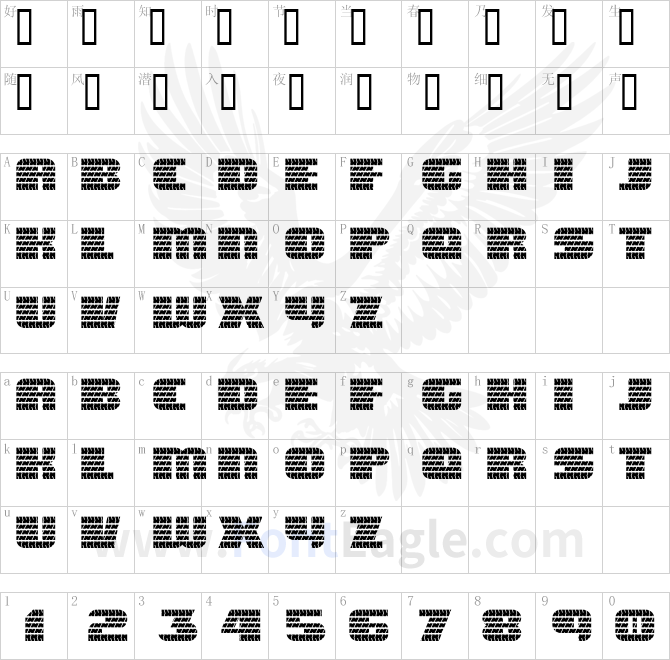
- Font name:Eagle GT II
- Font Subfamily ID:Eagle GT II
- Font Full Name:Eagle GT II
- Font Version:1.0 – 9/30/99
- Font Copyright:©1999 – R.Gast – GreyWolf WebWorks